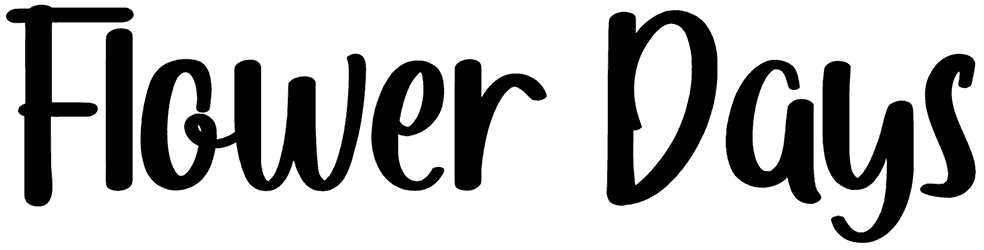
Flower Days Font
Do you need a contemporary and realistic face for your intended project? This farmhouse font, with its soft, hand-drawn letters, can be what you want. Flower Days, as a script font, doesn’t support numbers or punctuation marks, but still would be enough to illustrate your novel designs from business cards to social media posts.